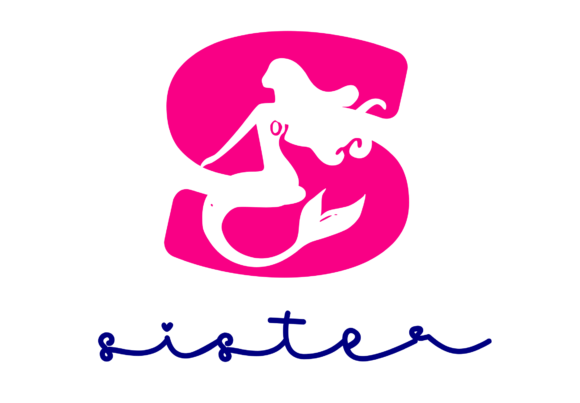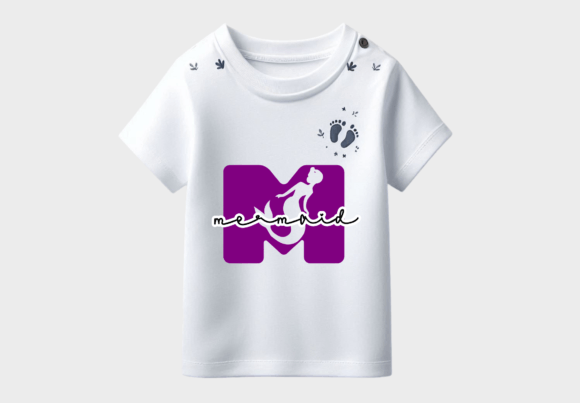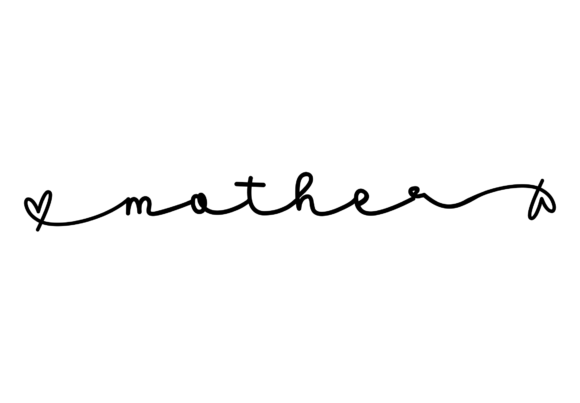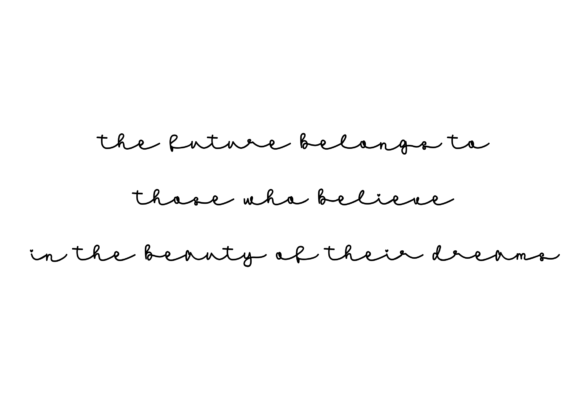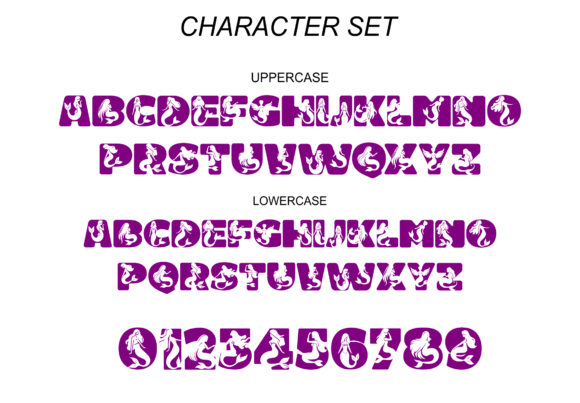
Mermaid Lovely Font
Experience the captivating allure of “Mermaid Lovely”, a typographic masterpiece that elegantly combines two distinct styles into one harmonious mix. Channeling the artistic nuances found in human penmanship, this font emanates a cozy and engaging ambiance, that adds profound depth to your expressive ventures.
“Mermaid Lovely” brings forth a spirited script layout simply brimming with captivating charm, lending a new and refreshing perspective to your design canvases. This unique convergence of features proudly exhibits a one-of-a-kind personality that has been diligently crafted to instill an exotic charm into your endeavors. The quest for the ultimate typographic ally concludes with the wonderfully captivating font duo named “Mermaid Lovely”.